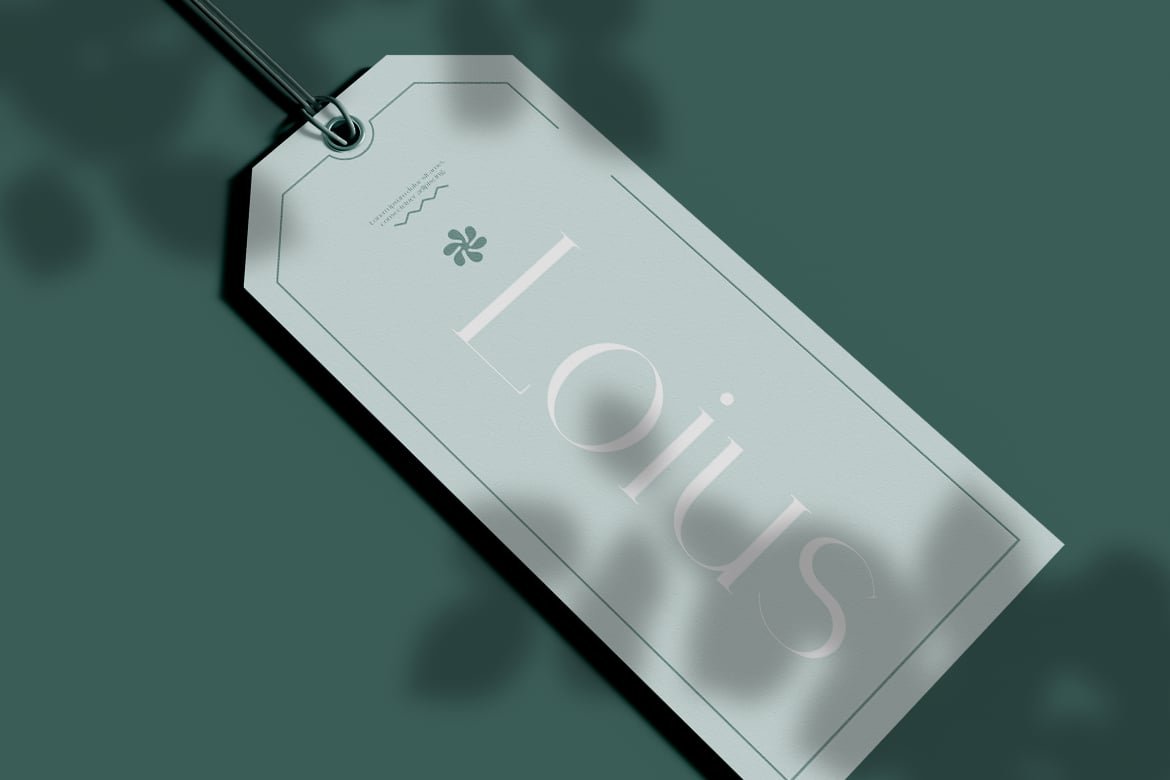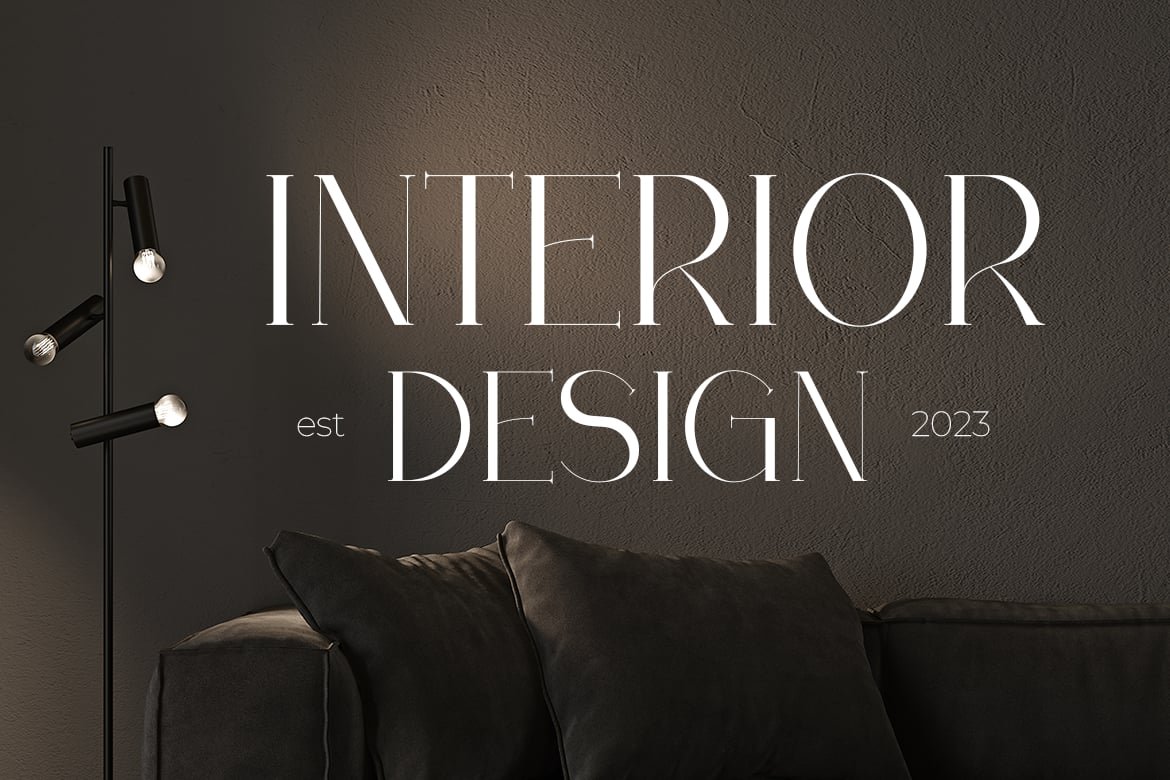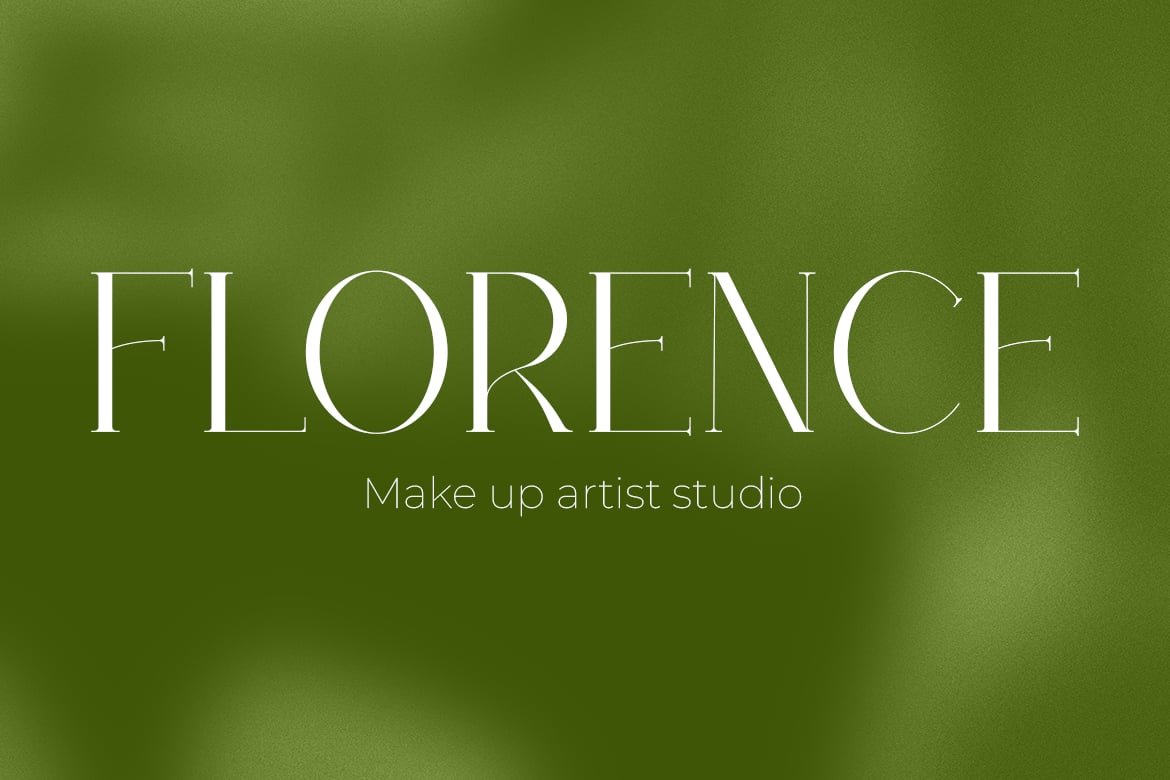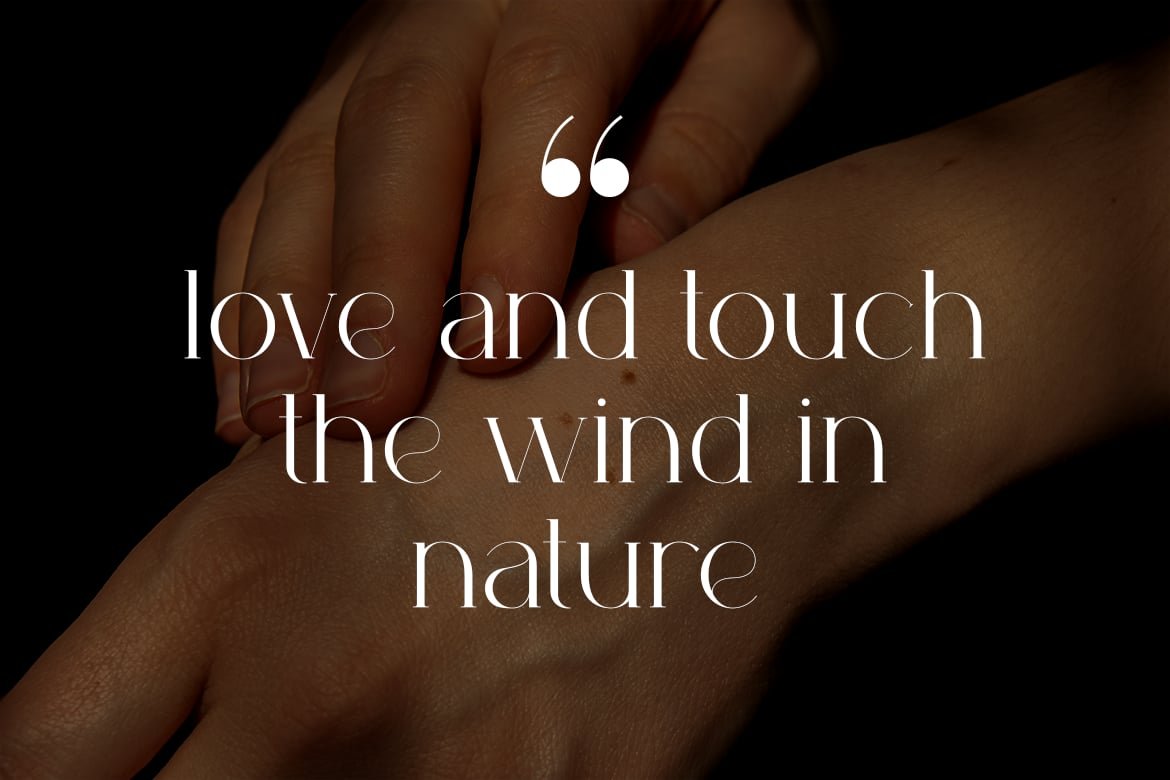
Platinum – Luxury Modern Elegant Font
Platinum – Modern Luxury Elegant Serif Font
Platinum is a sophisticated and versatile serif font designed to bring a touch of modern luxury to your creative projects. With its graceful curves, refined letterforms, and elegant appearance, Platinum blends contemporary style with timeless femininity.
Perfect for logos, branding, wedding invitations, product packaging, fashion designs, social media posts, business cards, posters, and more, this font offers seamless versatility. Platinum's well-crafted alternates and stylistic variations allow you to create unique and captivating designs effortlessly, adding a luxurious charm to any project.